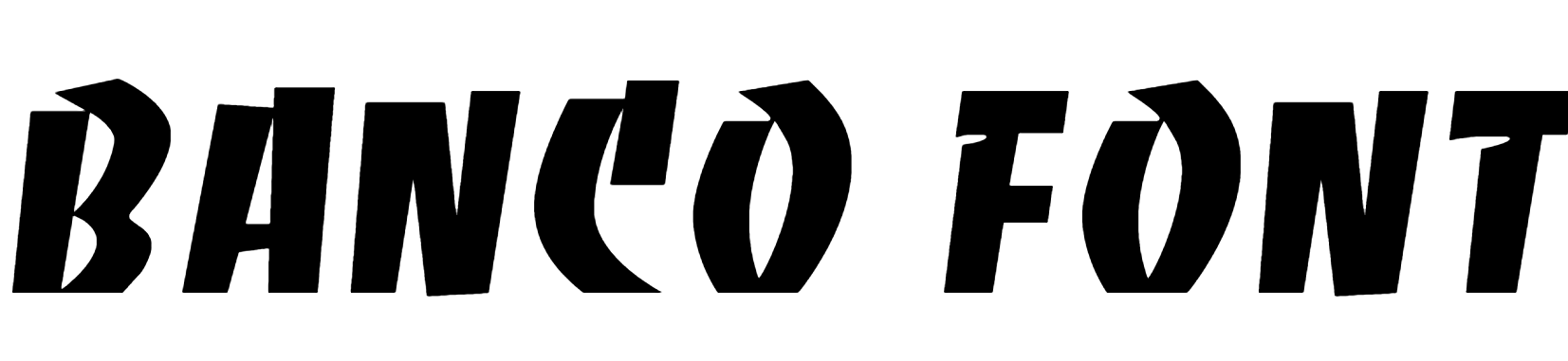
Banco
What You Can Type With Banco
Banco covers the full alphabet in upper and lowercase, plus all ten numbers, so you can set names, dates and prices without switching fonts. Common punctuation such as &, !, ? and @ is included as well. It also has the accented letters you need for Spanish, French, German, Portuguese and Italian.
Where Banco Works Best
Banco is a natural fit for posters, logos and eye-catching headlines. Use it for one standout word or headline and let simpler fonts handle the rest.
Does Banco support accented letters?
Yes. Banco includes the accented letters needed for Spanish, French, German, Portuguese and Italian, so it works for more than just English.